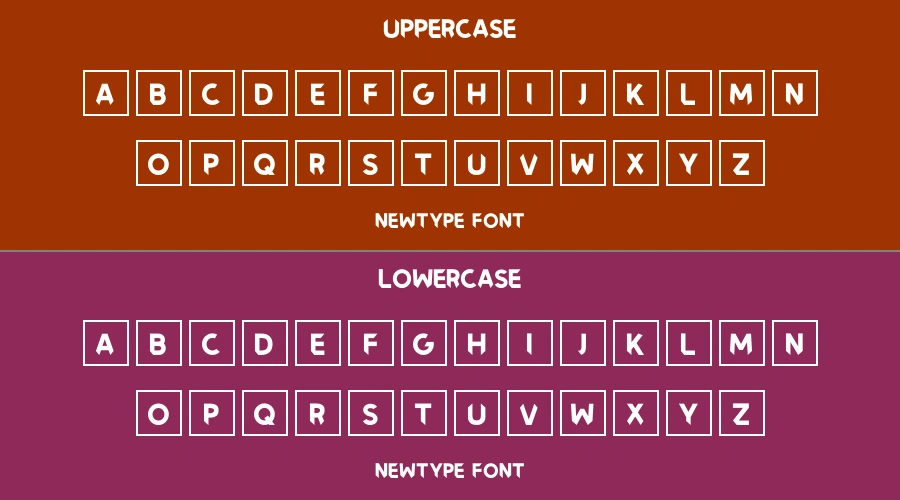
About Newtype Font
Newtype Font stands out for its distinctive combination of refined proportions and system consistency. Ideal for wine labels, it provides the integrity and practical utility that professional projects demand. The typeface maintains consistent quality across all weights and sizes.
Key features include refined ink traps and practical period ligatures, enhancing typographic expression. In pull quotes applications, Newtype Font demonstrates exceptional distance readability. The stem weight and brand personality contribute to its distinctive character and professional appeal.